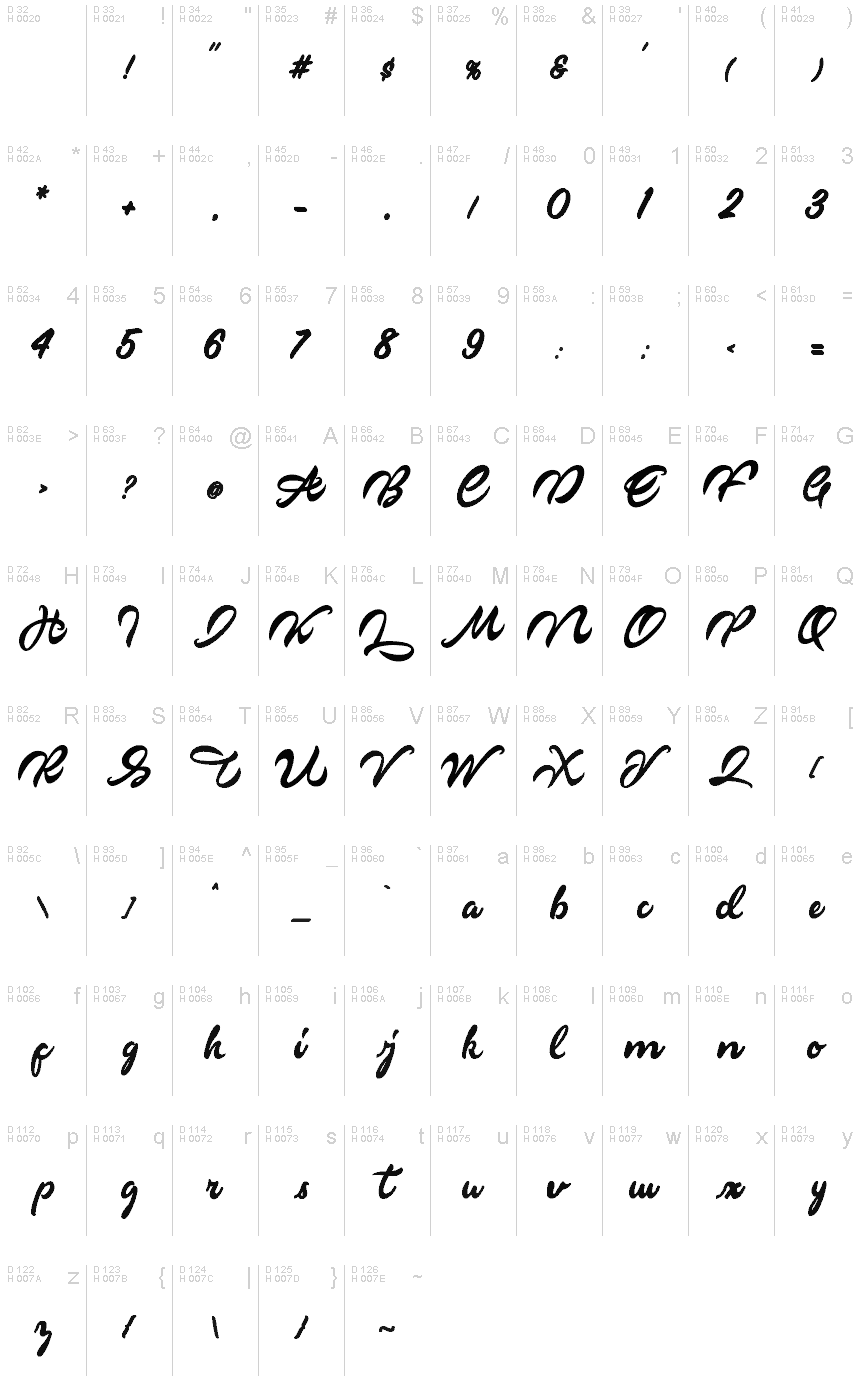
Markinson
Markinson is a captivating calligraphic font that exudes a delightful retro charm. Designed by Easetype, this script-like typeface boasts graceful, swooping letterforms that evoke the elegance of handwritten calligraphy.
The fluid, expressive strokes lend an organic, artisanal feel, making Markinson an excellent choice for a wide range of design applications. From vintage-inspired branding and event invitations to editorial layouts and product packaging, this versatile font can infuse any project with a timeless, artisanal aesthetic.
Its distinctive character and versatility make Markinson a valuable addition to any designer's typographic arsenal.